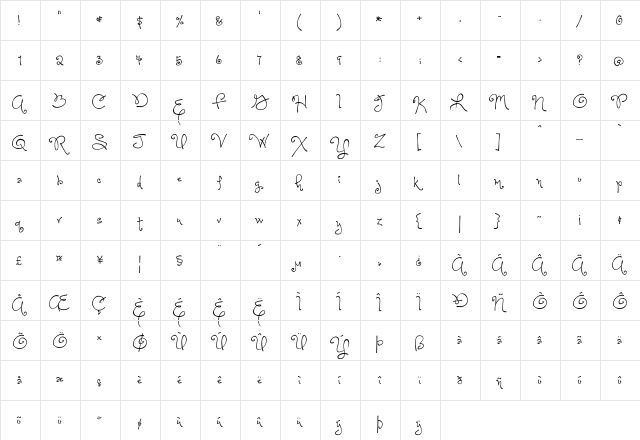
One Starry Night Regular
| Designer | Brittney Murphy |
Design Context for One Starry Night Typeface
One Starry Night is a composed and adaptable typeface that performs quietly and consistently across a wide range of design contexts.
Pro Tip: Pair One Starry Night with a font of contrasting weight or personality to build a more expressive typographic hierarchy.